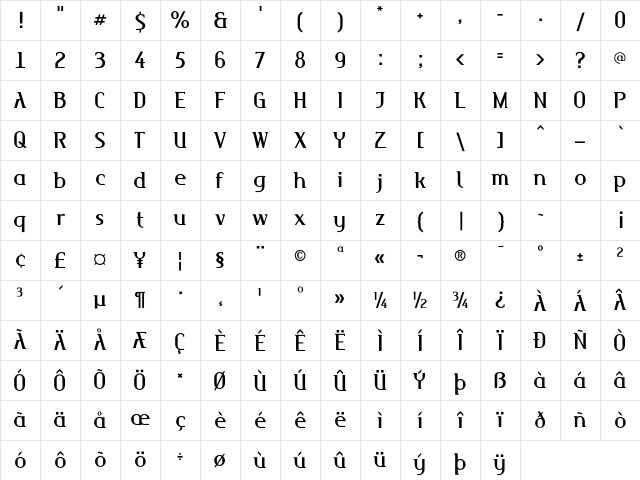
Maverick Medium
Design Context for Maverick
Maverick is a composed and adaptable typeface that performs quietly and consistently across a wide range of design contexts.